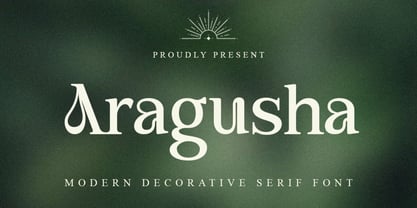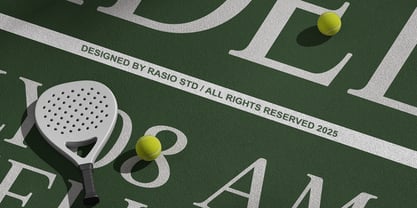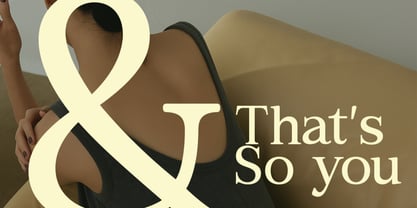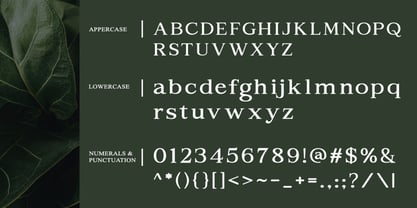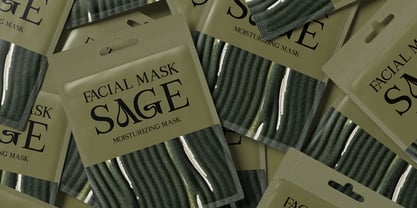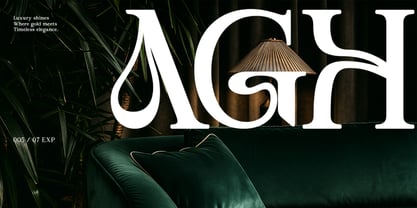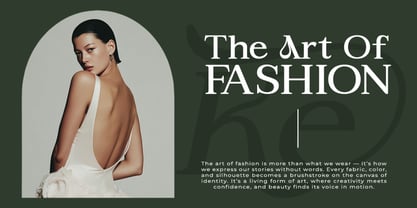
Aragusha
by Rasio Studio
The Aragusha Font Family was designed by Fajar Indra and published by Rasio Studio. Aragusha contains 1 styles. More about this family
A bold, condensed decorative serif font inspired by hand-brushed kanji strokes and traditional Asian visual rhythm, fused with a modern serif foundation. The uppercase characters feature intentionally irregular textured edges, delivering a natural dry-brush effect while preserving crisp structure and high headline impact. The lowercase set offers smooth, balanced serif forms with subtle contrast, including ligature pairs that add fluid connectivity between certain character combinations for refined typographic composition. This font pack contains a complete Latin character system (A–Z and a–z), numerals, punctuation, symbols, and supported standard ligatures, all built with clean file organization for fast editing workflows across design environments. Optimized for multi-platform typography, Aragusha maintains solid readability at large display sizes, offering strong silhouette clarity even with its textured stroke personality. The design avoids excessive ornament noise while still expressing a raw, cultural brush-crafted identity suitable for modern branding, poster headlines, merchandise typography, and digital content creation.
Designers: Fajar Indra
Foundry: Rasio Studio